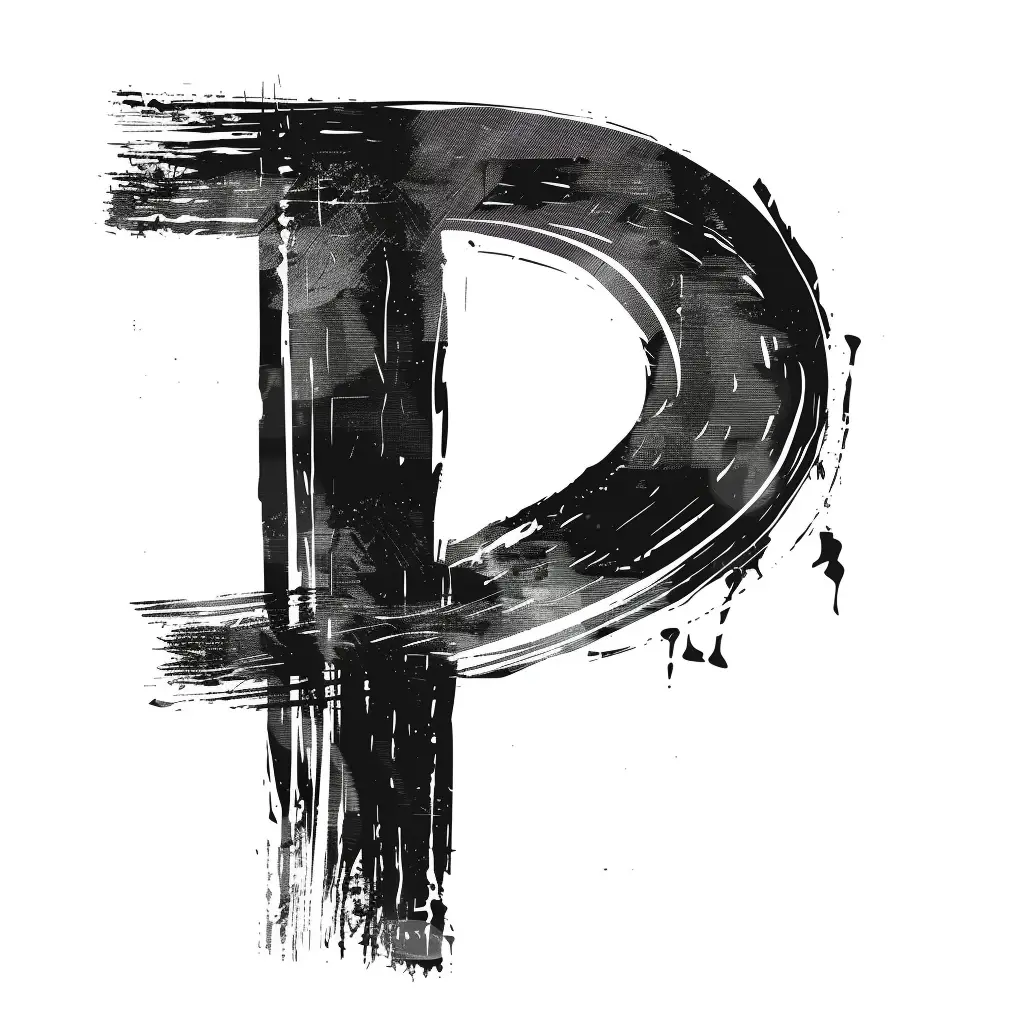
The image features a stylized, artistic representation of the letter "P" rendered in black and white. The design employs a rough, brushstroke-like texture with visible drips and splatters, giving it a dynamic, hand-painted appearance. The contrast between the dark, textured strokes and the light background emphasizes the letter’s bold, expressive form.